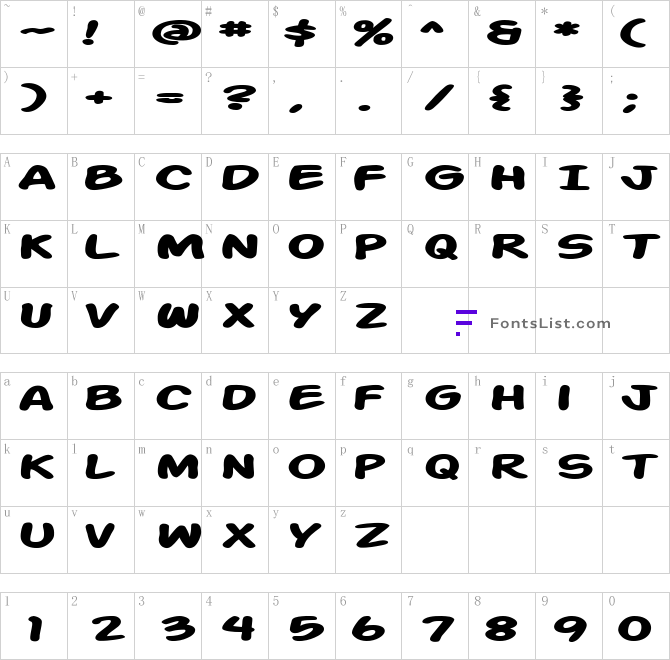
- Font Name:Action Man Extended
Action-Man-Extended-Bold.ttf is a very beautiful artistic font, Action-Man-Extended-Bold.ttf is widely used in the design and printing of various books and pictures,Action-Man-Extended-Bold.ttf has a strong visual impact,Action-Man-Extended-Bold.ttf is a commonly used font in newspapers, magazines and books, and is used in posters, e-commerce Poster design, store design, logo design, font design and other fields.Action-Man-Extended-Bold.